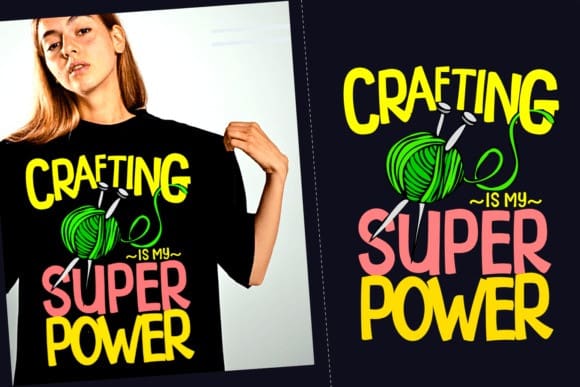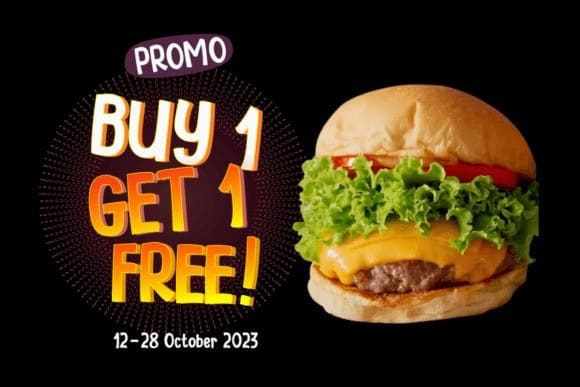
Olive Brown Font
Olive Brown Font is a quirky and friendly display font. Its natural and unique style makes it incredibly fitting for a large pool of designs. The only limit is your imagination!